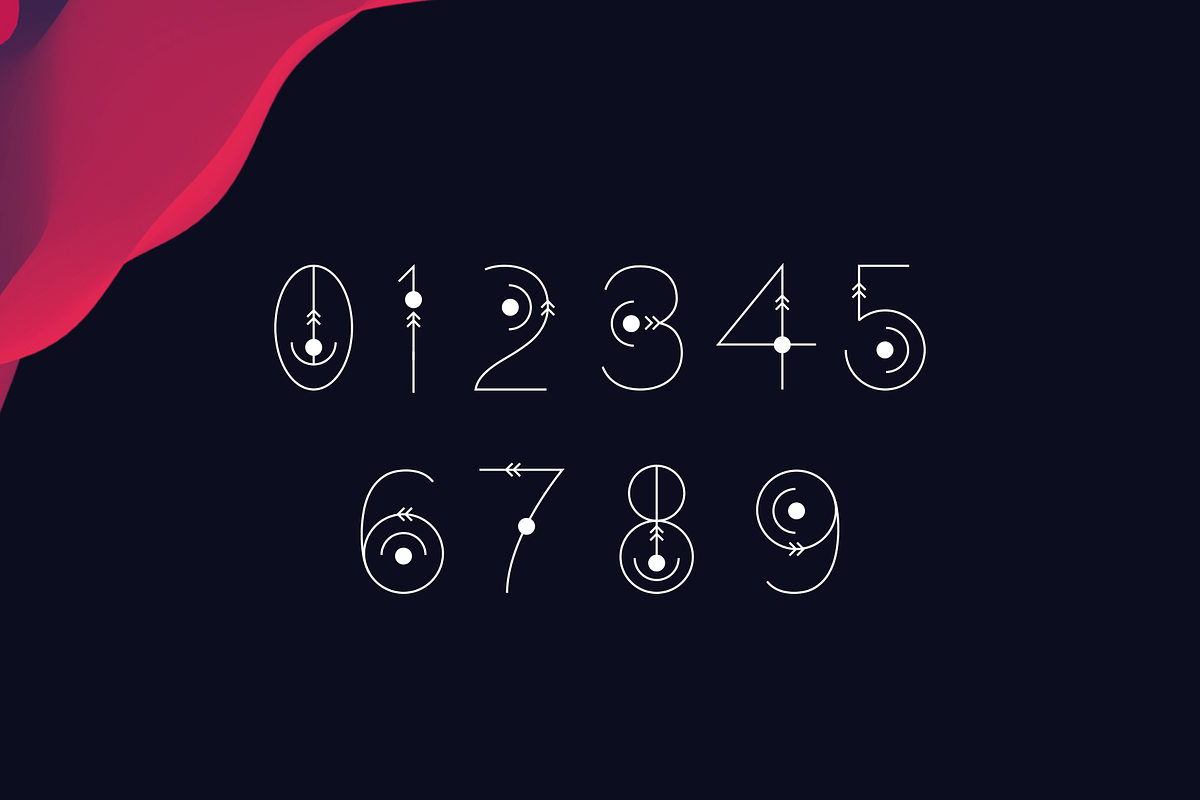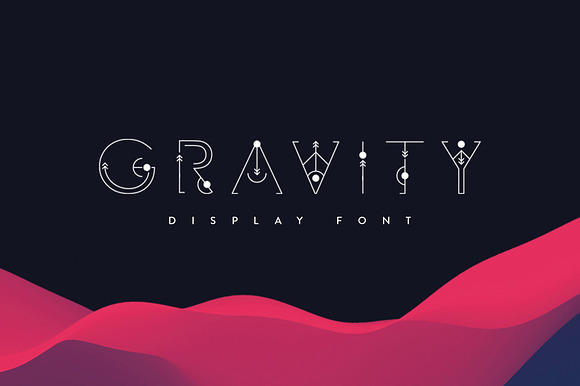
Gravity | Display Font
Gravity is a decorative geometric typeface inspired by the galaxy. It has a strong decorative presence, with a solid, geometric outline. Its unique shape and proportions gives the font a dynamic, cosmic feel. Ideal for headlines, identity, short sentences and branding.
Gravity is most suitable as a decorative display font.